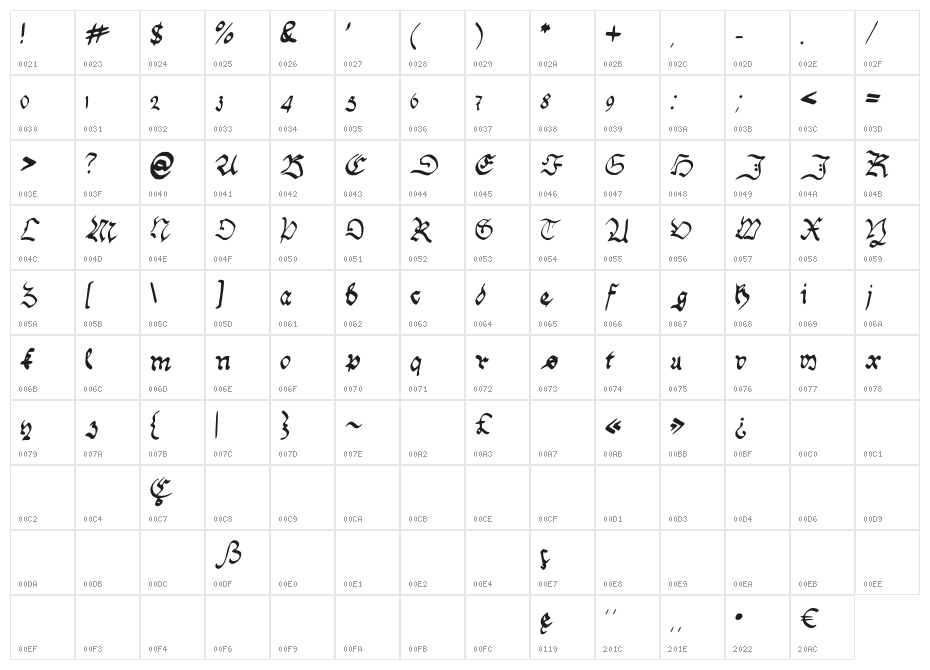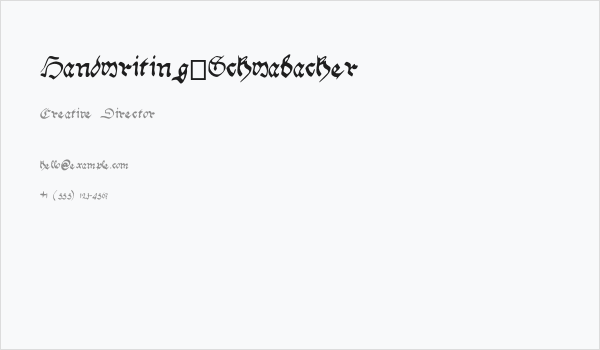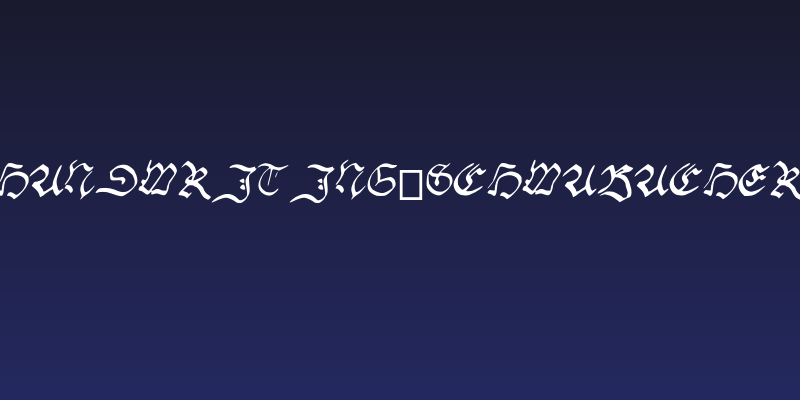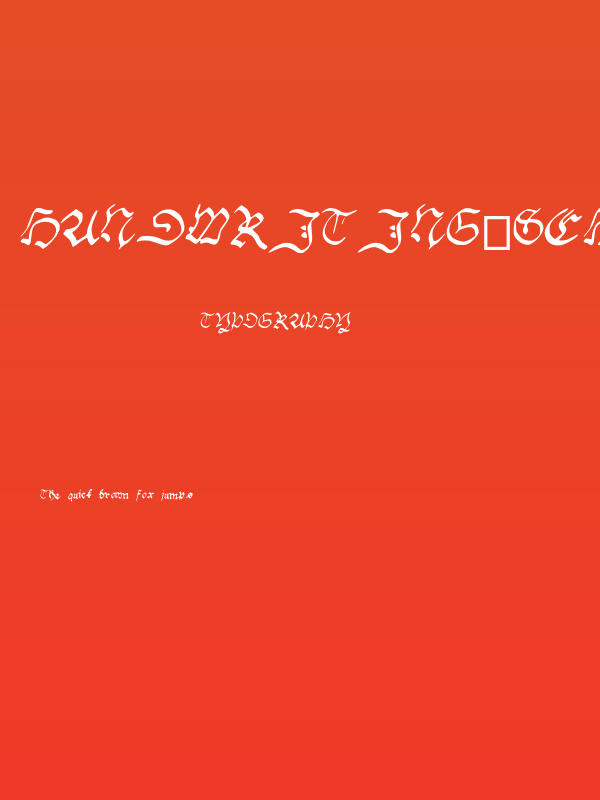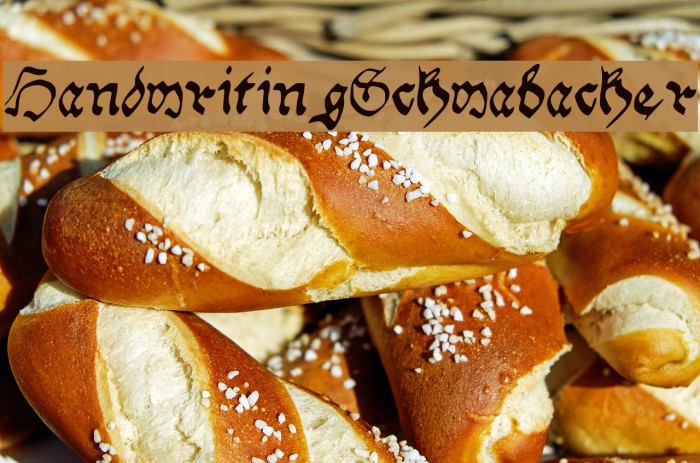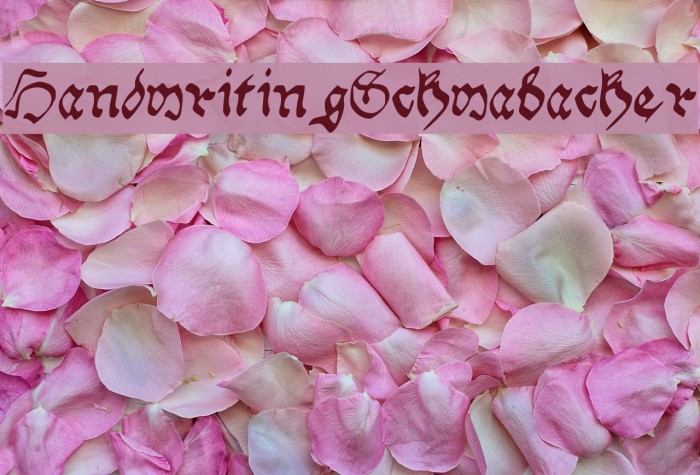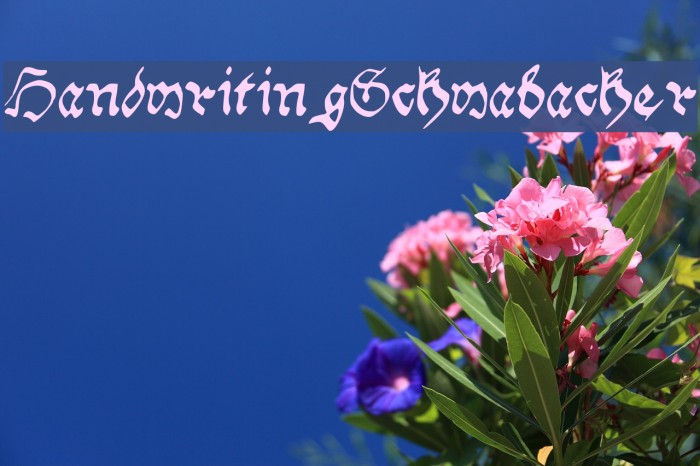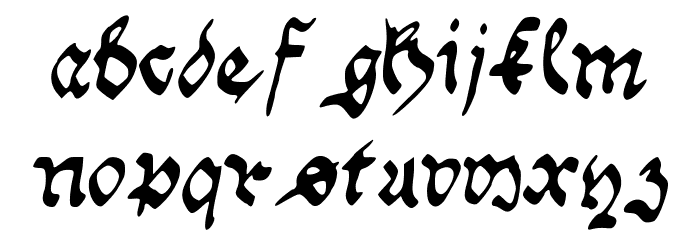
Handwriting_Schwabacher Font
Handwriting_Schwabacher Description
This font features a distinctive, ornate style reminiscent of traditional calligraphy with a Gothic influence. The characters are intricately designed with sharp angles and flourishes, giving them a dramatic and historical appearance. The uppercase letters are particularly elaborate, with sweeping curves and pointed edges, while the lowercase letters maintain a consistent style with slightly less embellishment. The numerals and special characters follow the same aesthetic, ensuring a cohesive look across all elements. This font's unique style makes it stand out, capturing the essence of medieval script with a modern twist.
| Overall Style | Vintage |
| Use Case | Logos, Headlines, Decorative text |
| Proposed Projects | Ideal for historical-themed designs, invitations, book covers, and branding that requires a touch of elegance and tradition. |